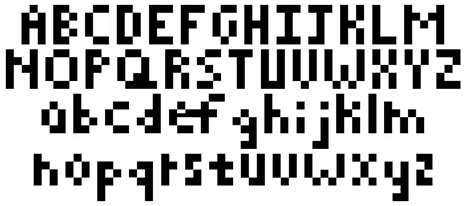
Pixelated Font Name. It’s got a chunky, retro. Express yourself with a unique collection of creative and vibrant typefaces.
Pixelated fonts have letters that are made to look like they are on old computer screens. Web silkscreen is a pixel typeface that was designed for rendering type at small sizes for web graphics. Express yourself with a unique collection of creative and vibrant typefaces. It’s got a chunky, retro. Add personality to your designs.
Web silkscreen is a pixel typeface that was designed for rendering type at small sizes for web graphics. Add personality to your designs. Express yourself with a unique collection of creative and vibrant typefaces. Pixelated fonts have letters that are made to look like they are on old computer screens. Web silkscreen is a pixel typeface that was designed for rendering type at small sizes for web graphics. It’s got a chunky, retro.